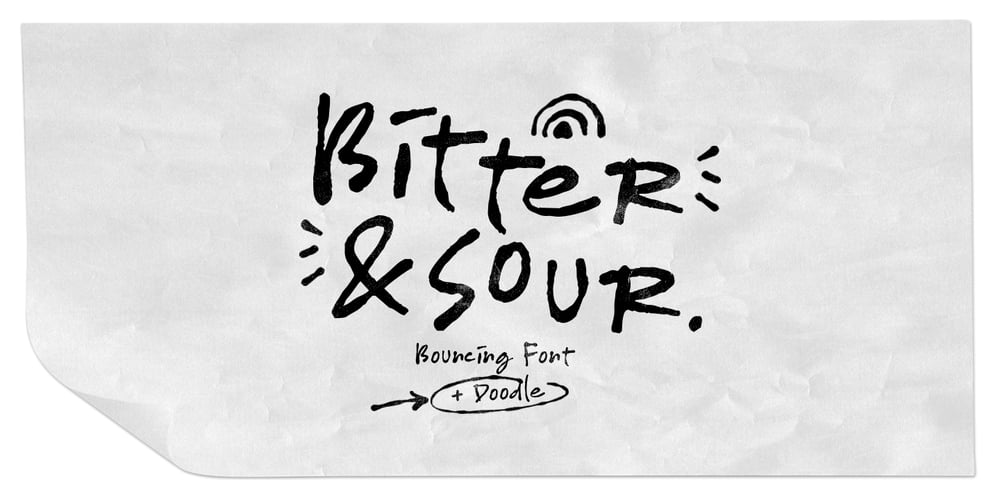
Bitter & Sour Font Family was designed by Hendry Juanda and published by Letterhend. Bitter & Sour contains 2 styles and family package options. Bitter & Sour is a Bouncing typeface with fun and playful looks. Comes with doodle dingbats! This type of font perfectly made to be applied especially in fun, playfull, storybook children or child theme which is need a standout font, and the other various formal forms such as invitations, labels, logos, magazines, books, greeting / wedding cards, packaging, fashion, make up, stationery, novels, labels or any type of advertising purpose.Features : Uppercase & Lowercase Doodle dingbats numbers and punctuation multilingual ligatures PUA encoded We highly recommend using a program that supports OpenType features and Glyphs panels like many of Adobe apps and Corel Draw, so you can see and access all Glyph variations.